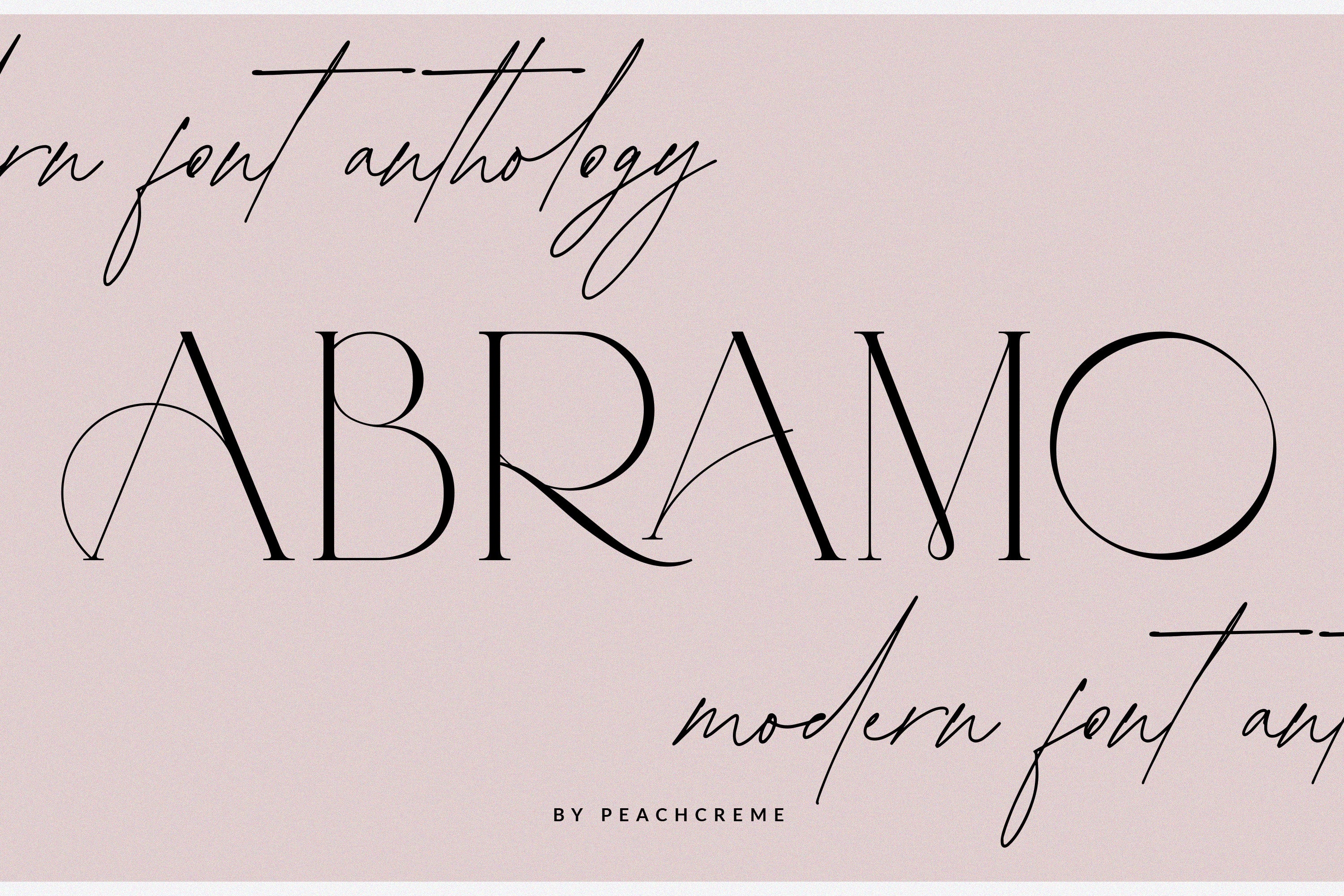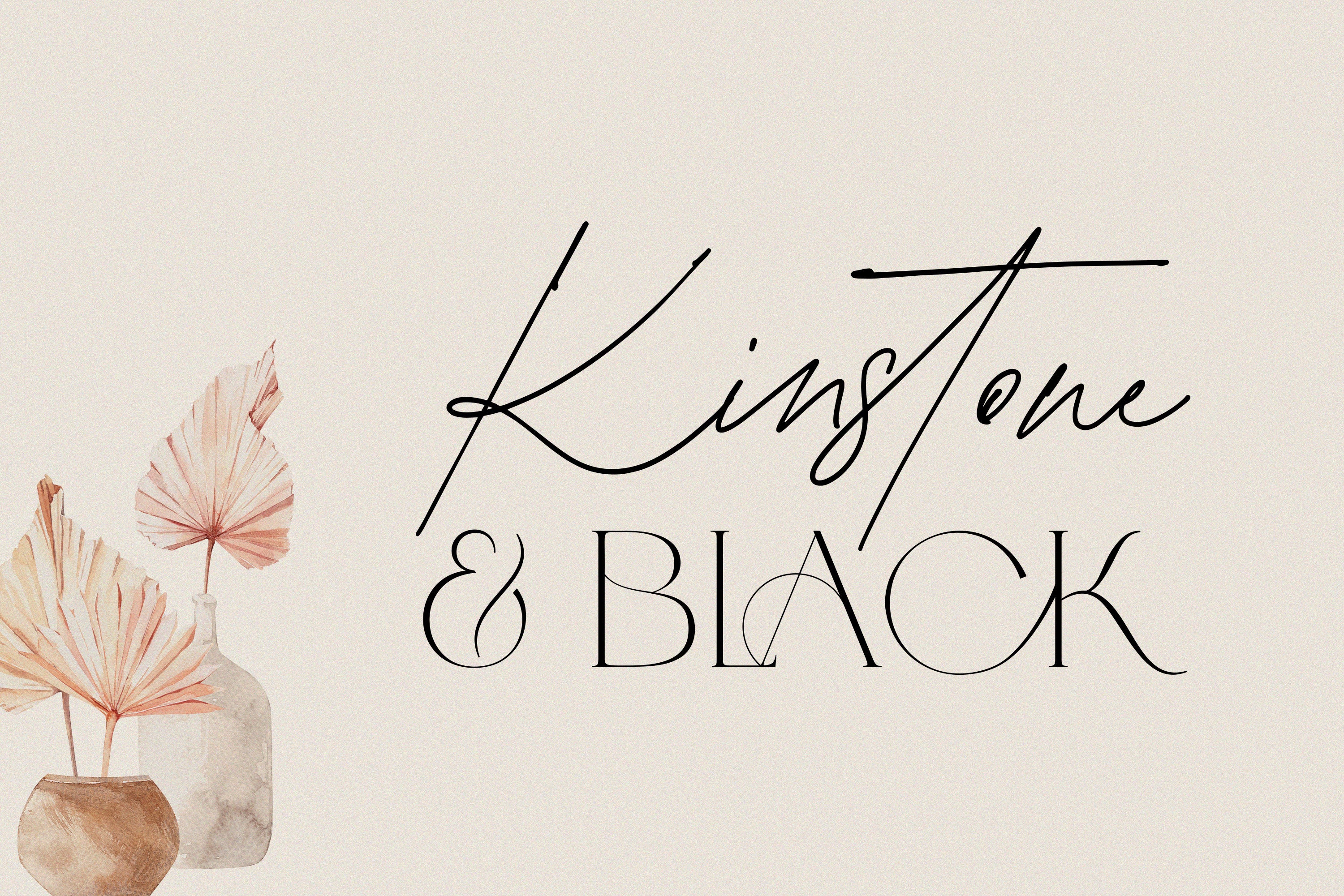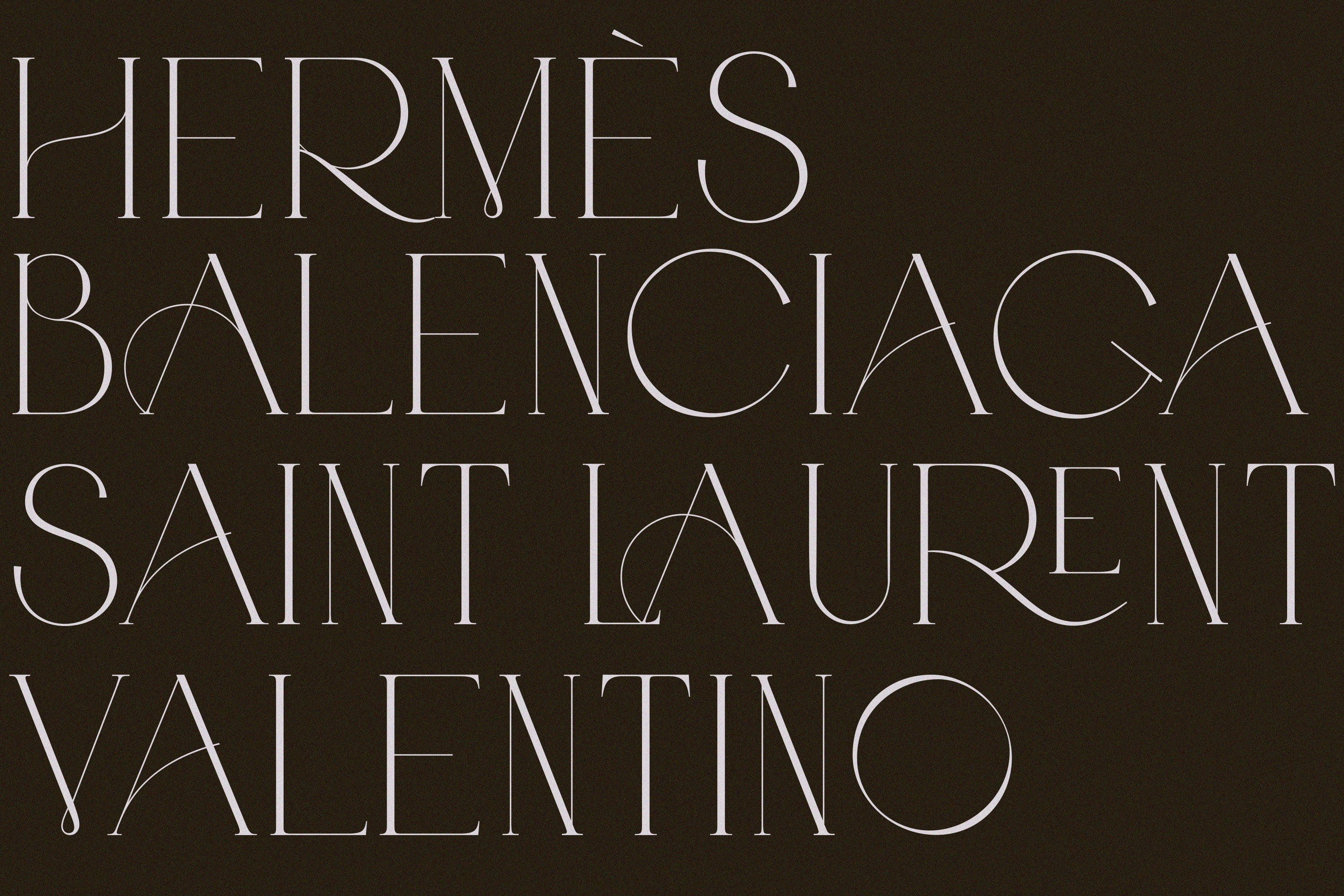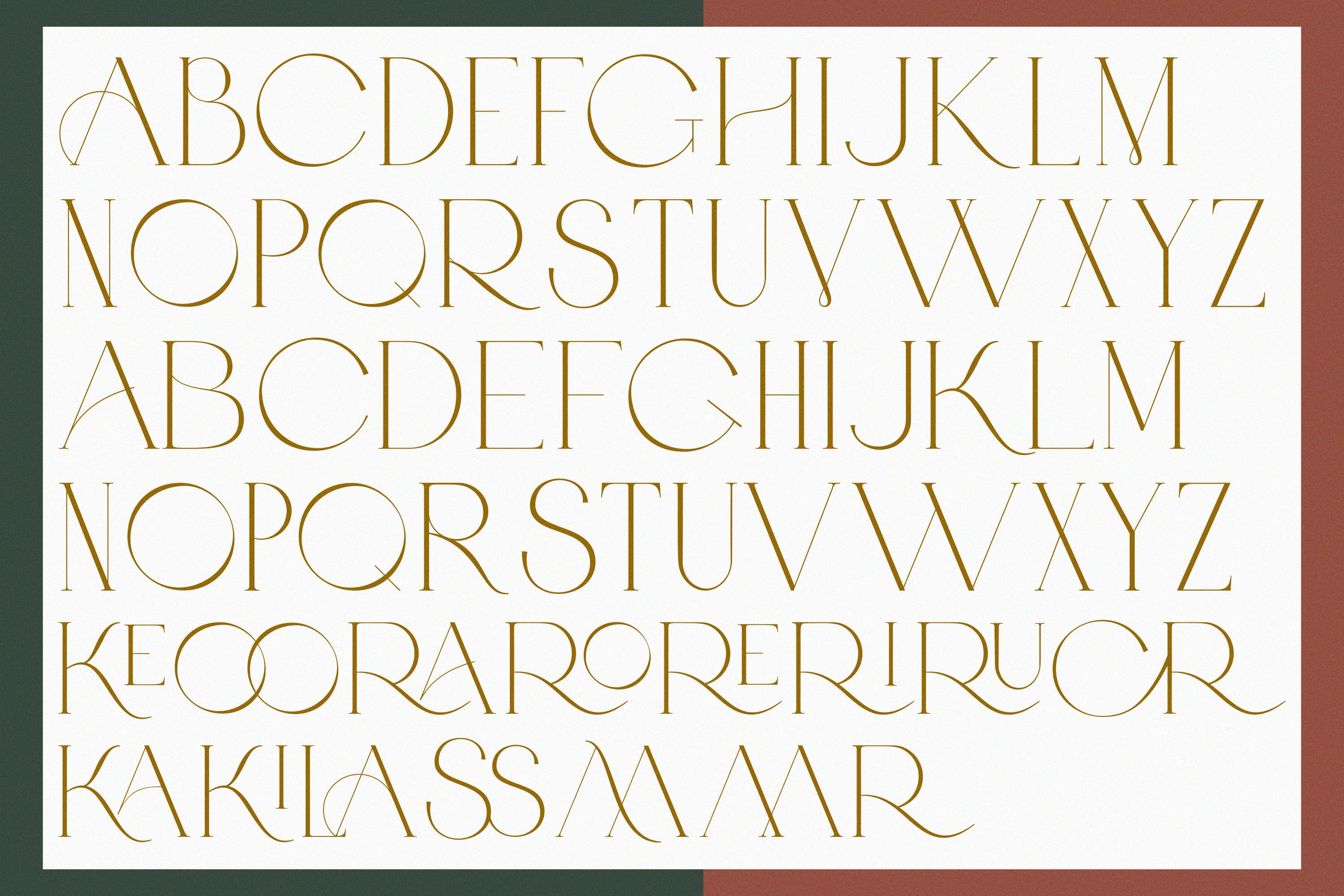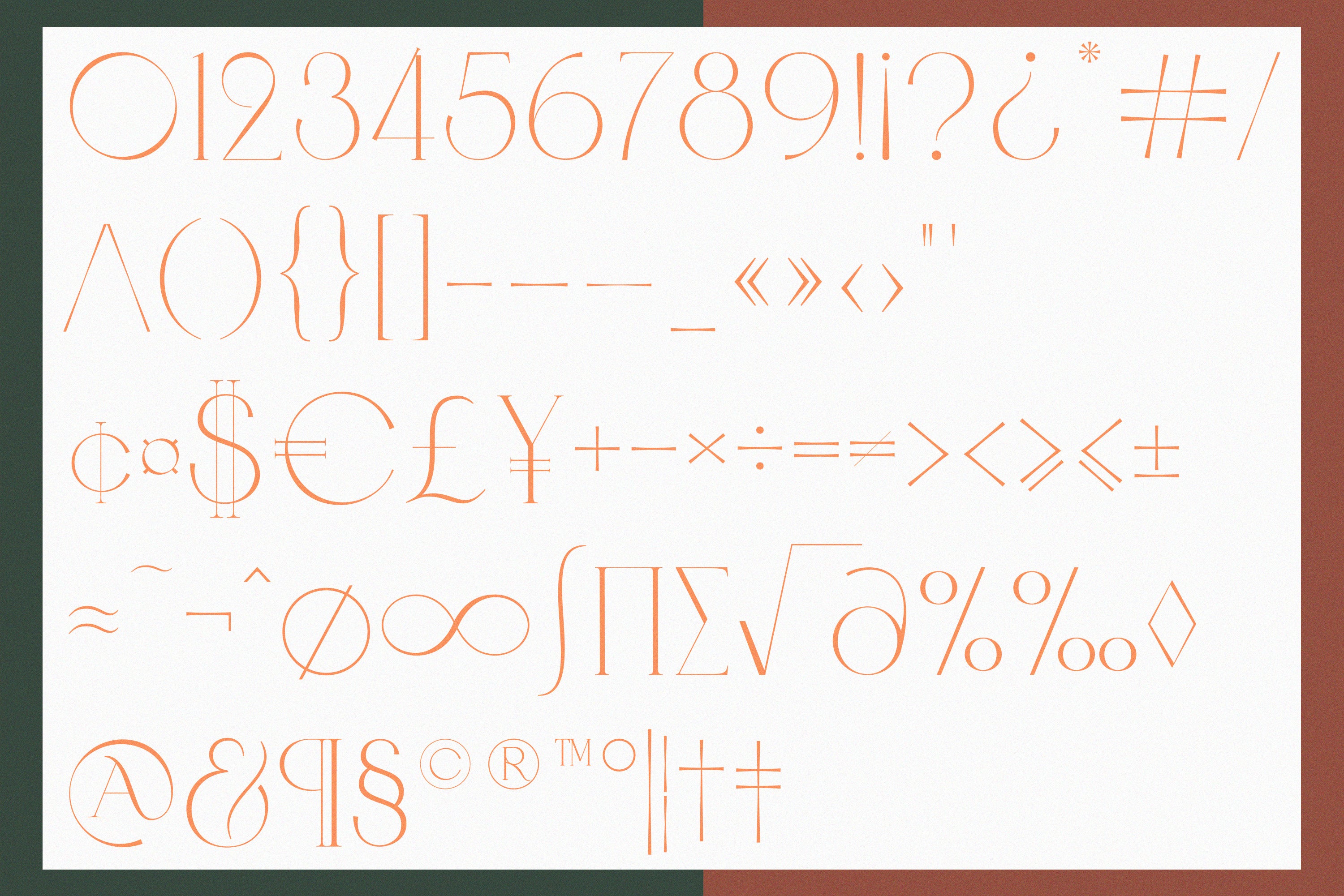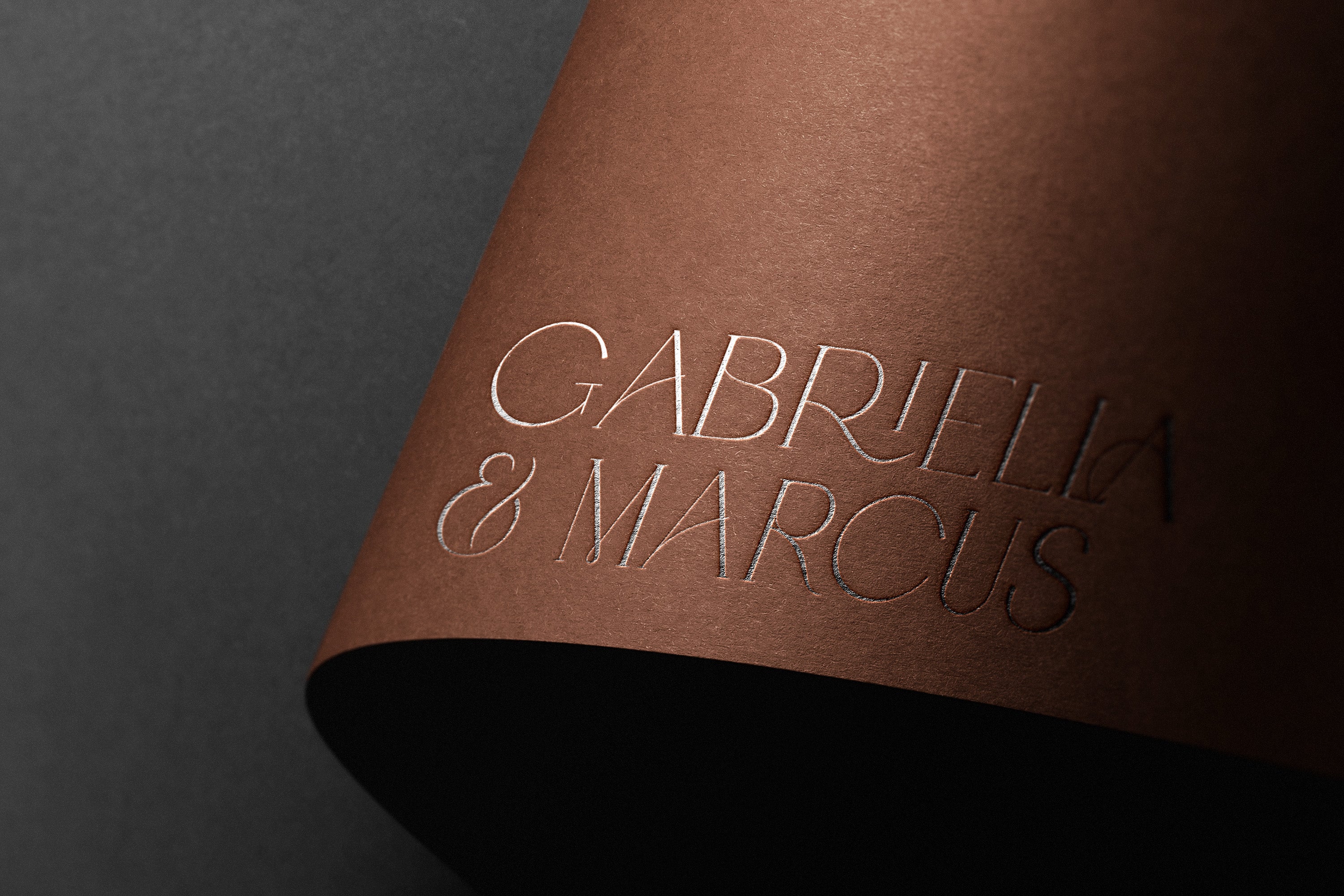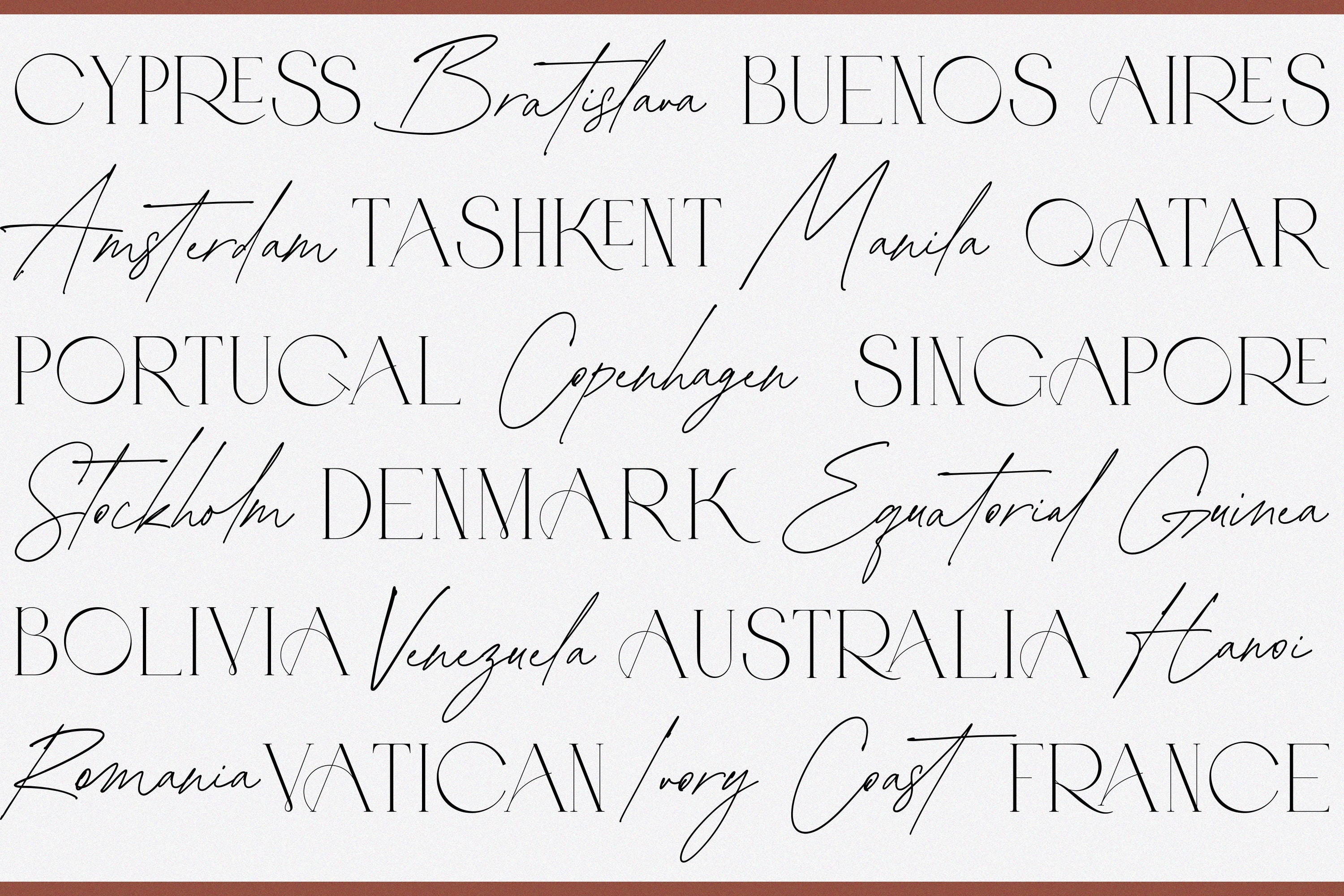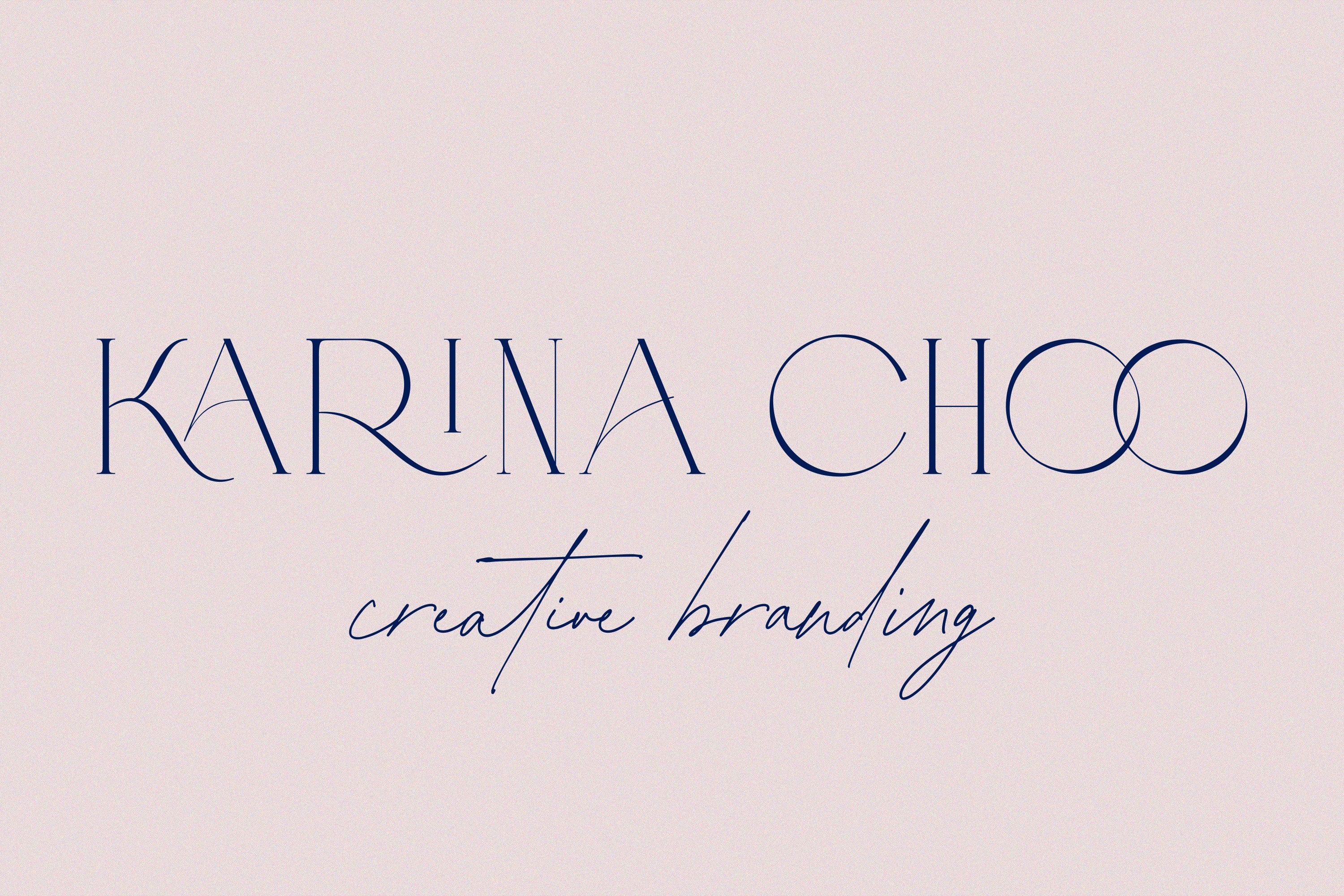
Abramo Font Duo
Abramo is a set of two modern fonts: all-caps serif and stylish script. They blend together so well, that you can create logos, social media posts, invites and many other projects